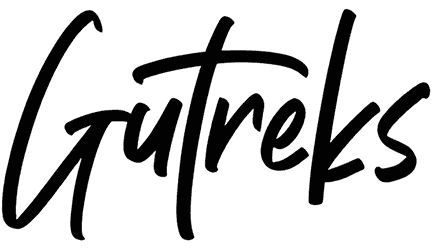
Gutreks Font
Gutreks is a script font that comes with a cursive style that dances along the baseline, thus conveying a sense of professionalism, delicacy, softness, or precision.
Since the characters of this handwritten font are designed with a considerable amount of accuracy, it can be utilized in posters, logos, greeting cards, product packaging, or flyers. We strongly recommend you overlook the lack of numbers and make charming outcomes out of it.